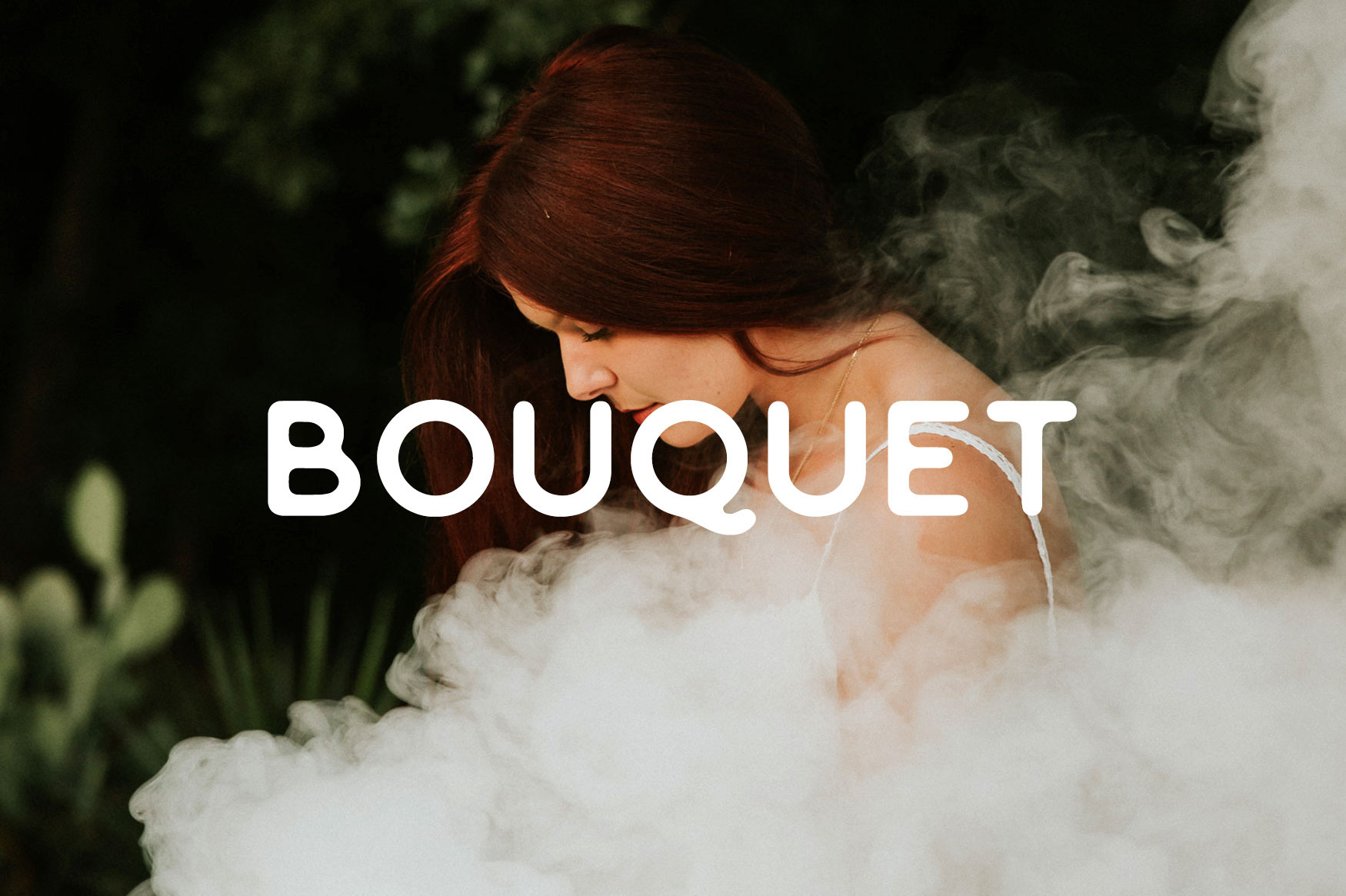
Bouquet Font
Bouquet is a simple sans serif typeface, with rounded edges in favour of a smooth and clean look. It is perfect for logo designs, titles or subtitles, and small amounts of text. The font includes an uppercase alphabet, numbers and common symbols.